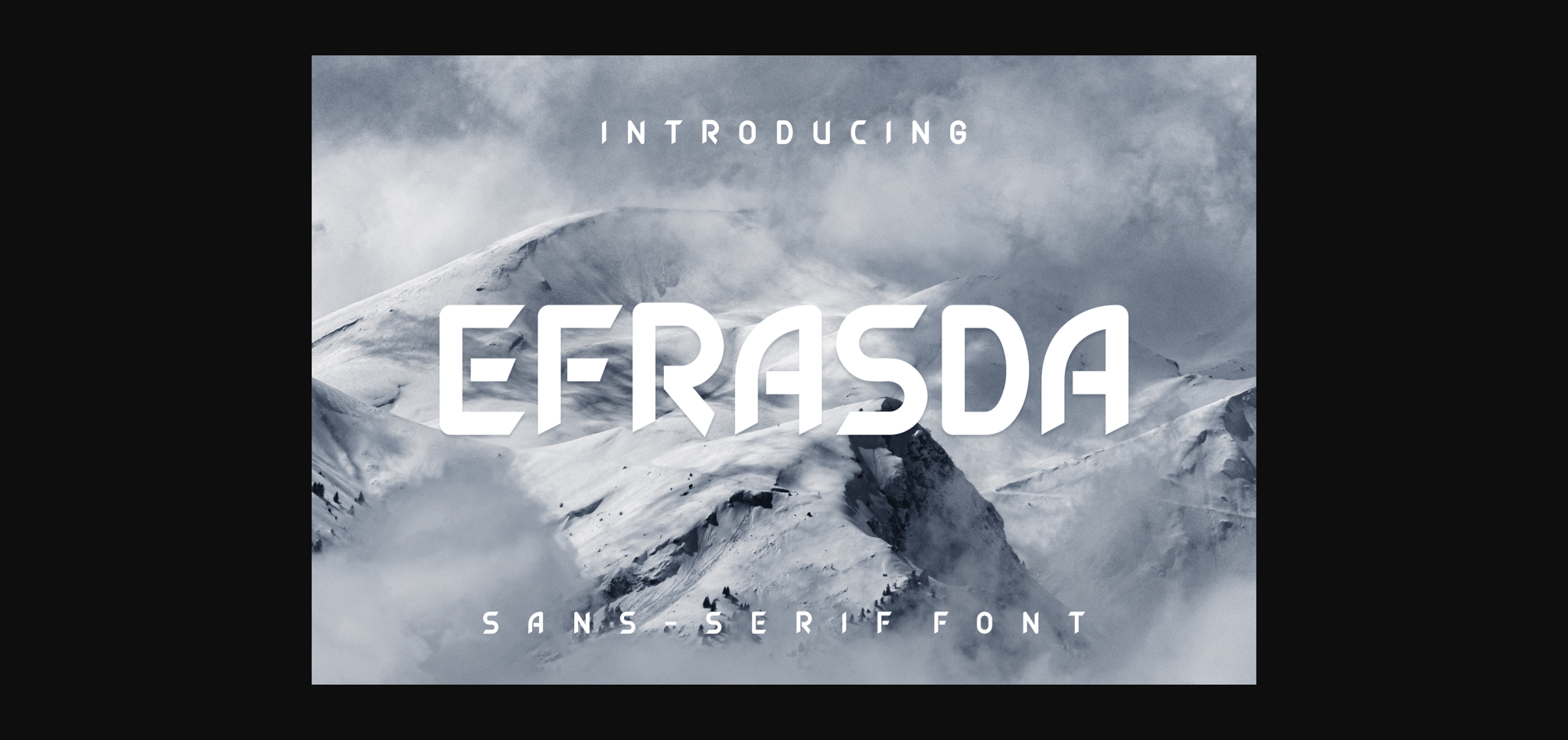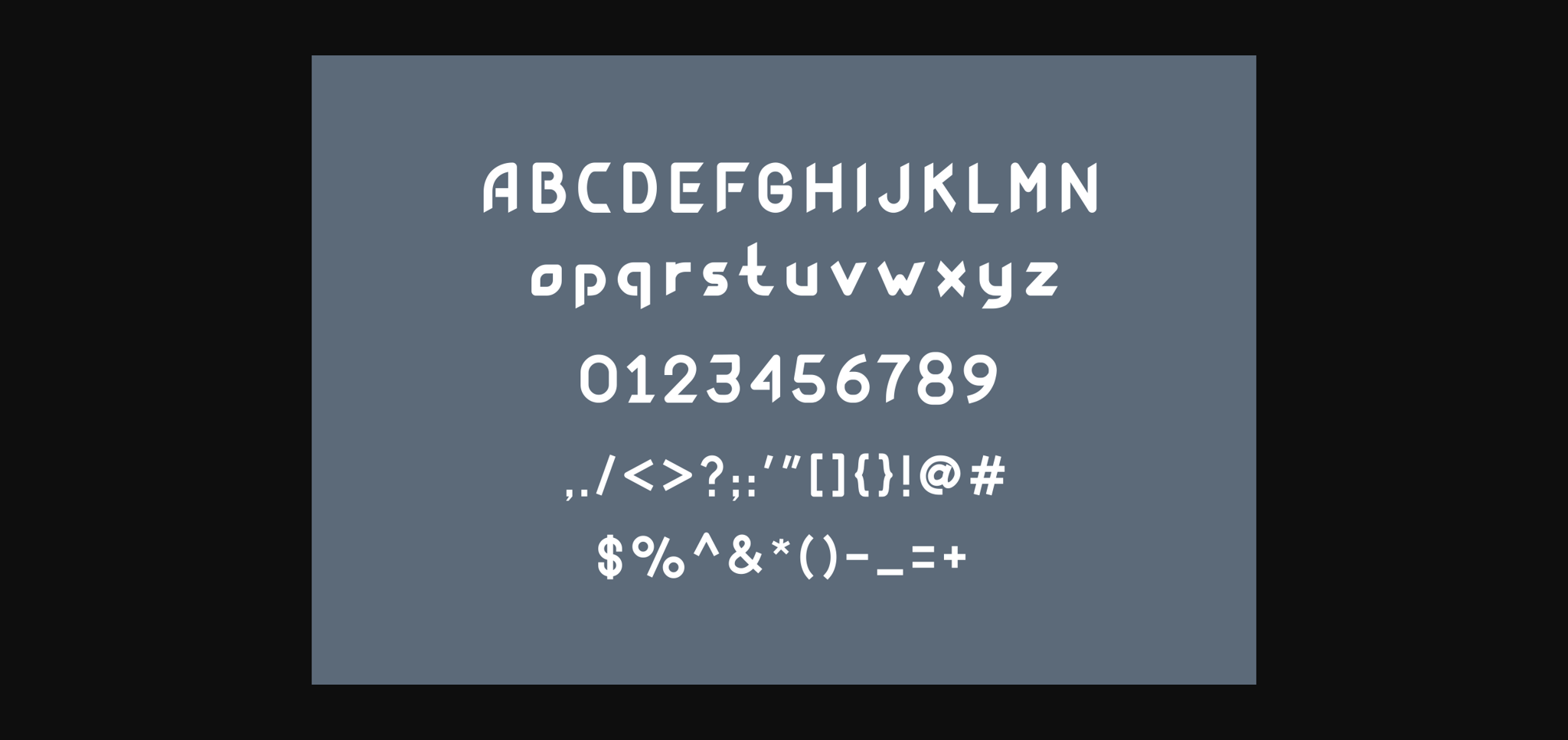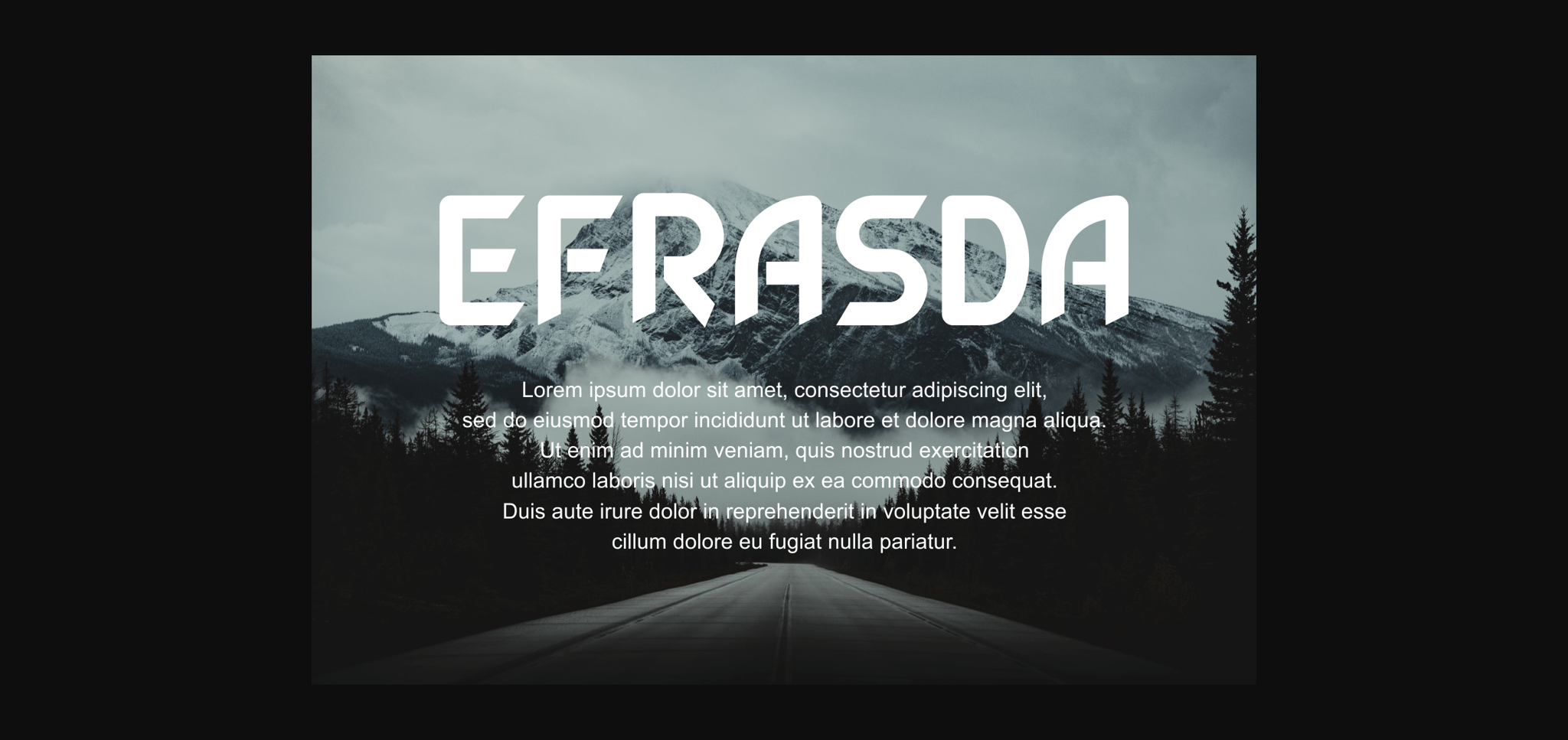
About Efrasda Font
Efrasda is a cool and neat sans serif font. Its distinct and well-balanced letters make this font a masterpiece. Fall in love with its incredibly versatile style and use it to create spectacular designs!